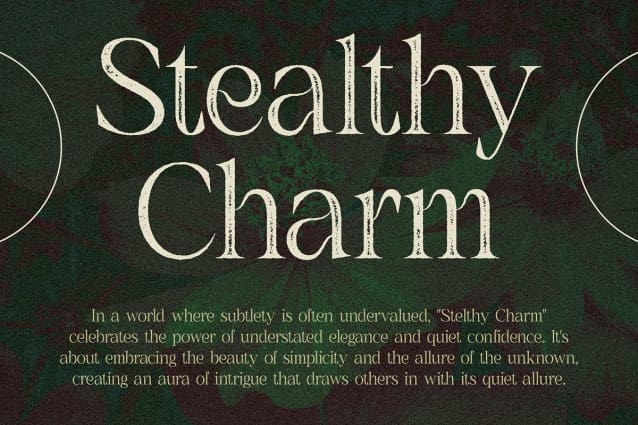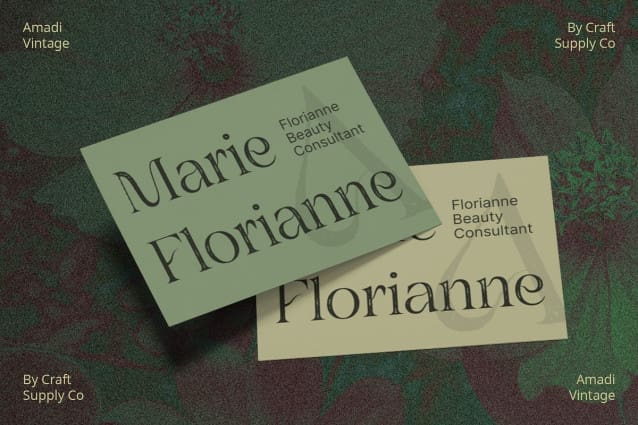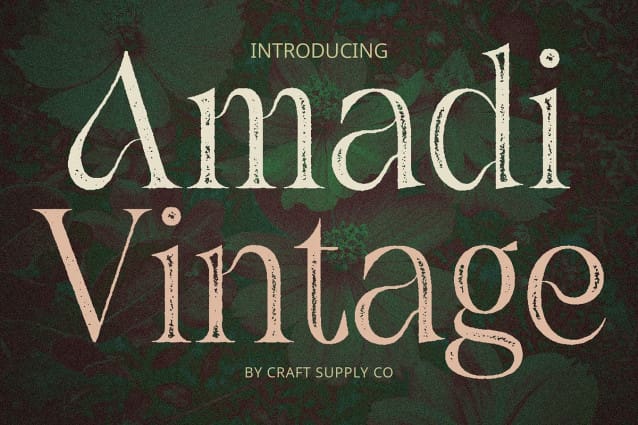
Amadi Vintage Font
Amadi Vintage Font: A Unique Blend of Serif Display. Distinctive Serif Design Amadi Vintage presents a serif display font with a moderate contrast, characterized by unique twirls on its shapes. These twirls narrow at the stem and widen at the stem’s end, creating an intriguing visual appeal.
Twirls for Visual Interest The twirls on This font shapes add a touch of uniqueness and visual interest. They enhance the font’s aesthetic appeal, making it stand out in any design composition.
Vintage Charm with Rough Stamp Drawn Effect Infused with a rough stamp drawn effect, This font exudes a vintage charm. This effect adds texture and character to the font, giving it an authentic and nostalgic feel reminiscent of bygone eras.
Versatility in Design Applications This font offers versatility in design applications. Whether used for branding, packaging, editorial design, or signage, its distinctive twirls and vintage-inspired rough stamp drawn effect make it suitable for various creative projects.
Uniquely Vintage This font is a serif display font that stands out for its unique twirls and vintage charm. With its moderate contrast and rough stamp drawn effect, it adds a nostalgic touch to any design, making it a versatile choice for a wide range of creative projects.